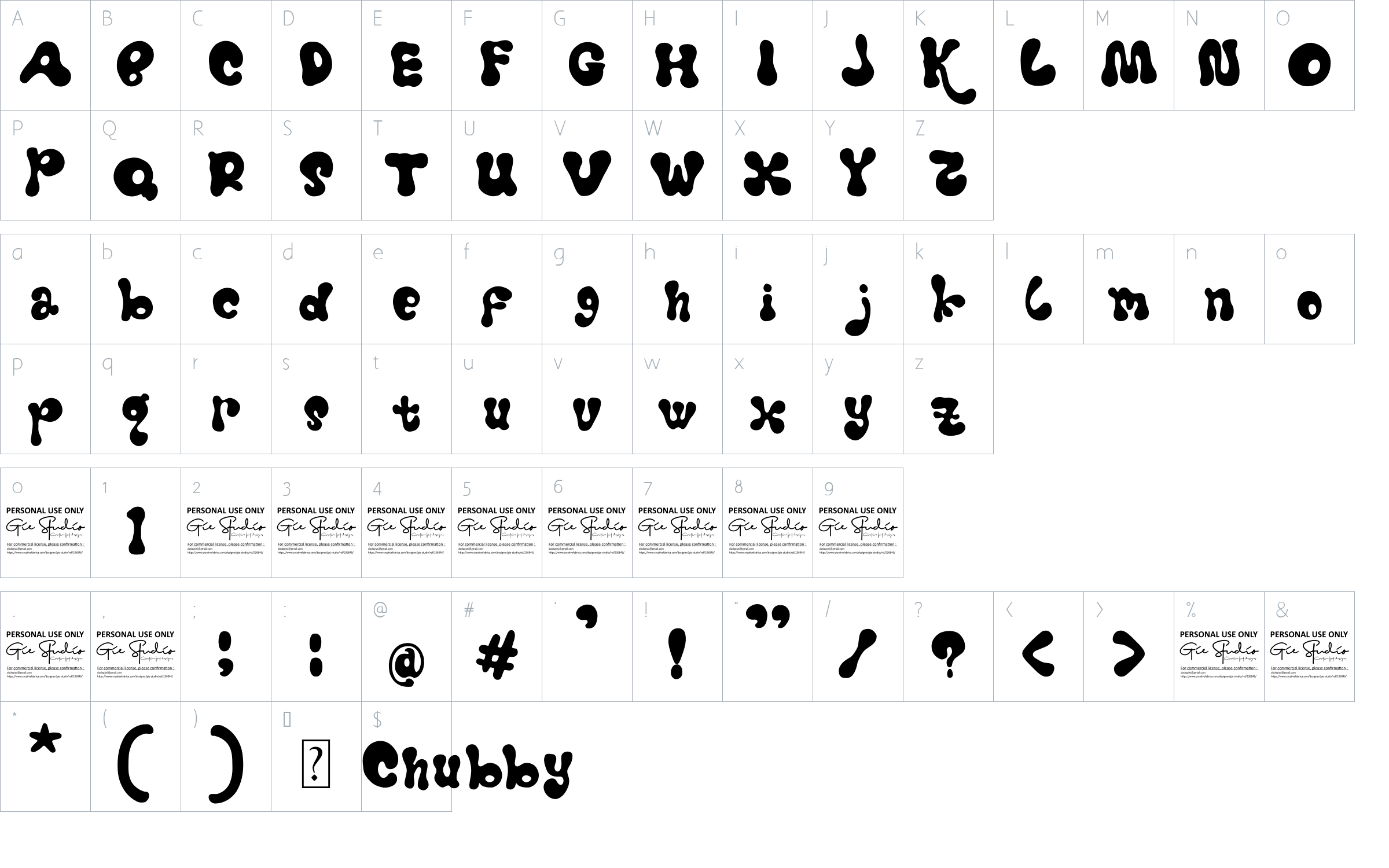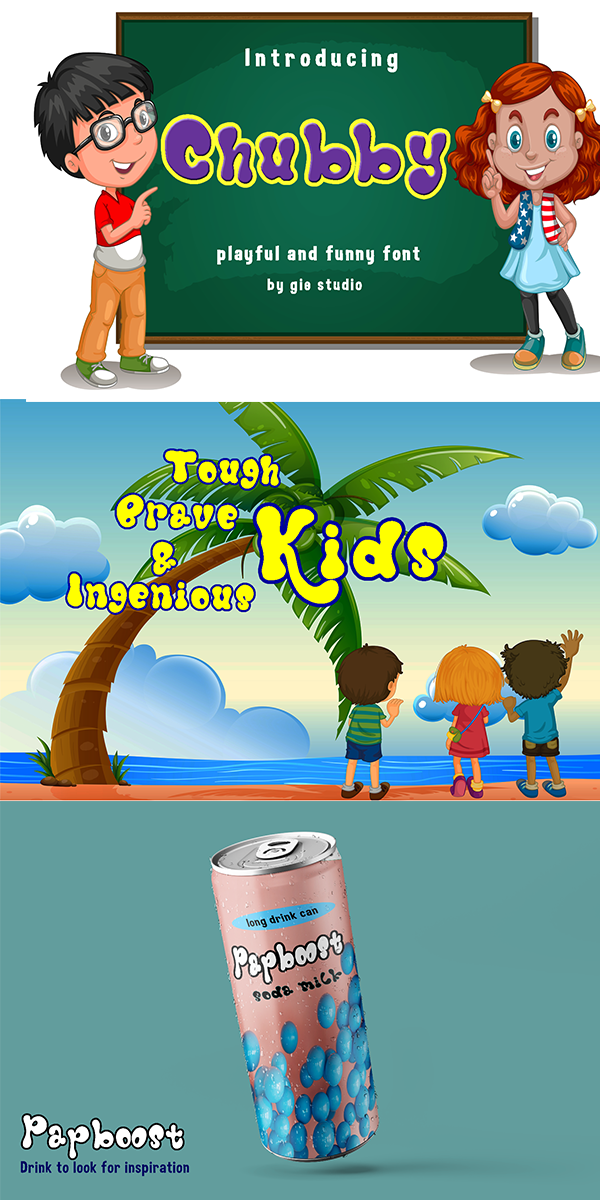
Chubby Font
Designed by Gie Studio
About Chubby
Chubby is a fun color font. It’s perfect for any kids’ project. Get inspired by its playful look.This font is very suitable and suitable for you to use to create various business designs related to children.